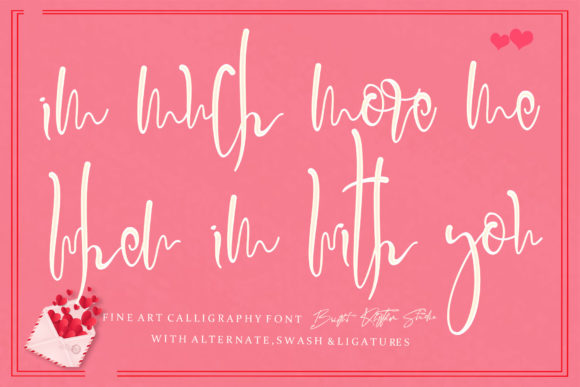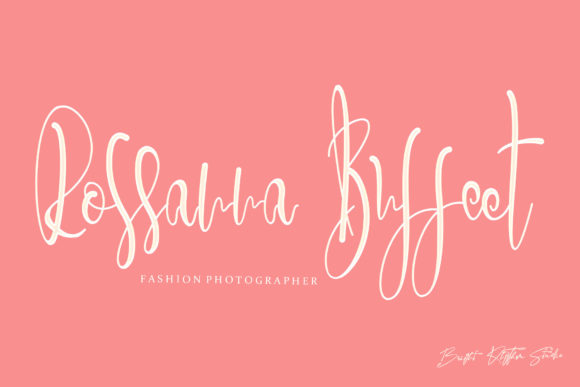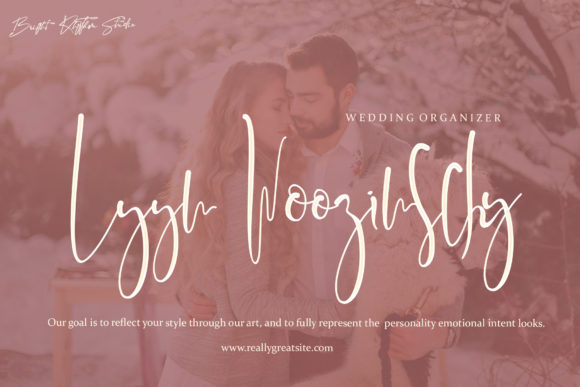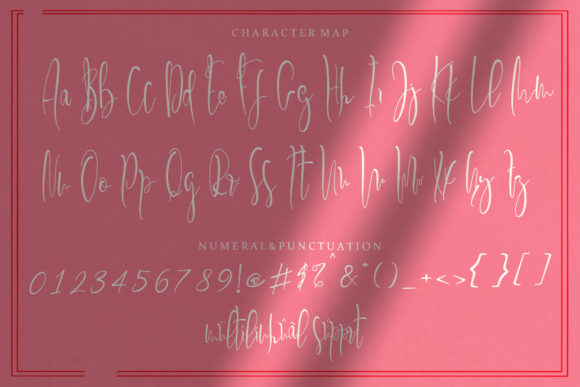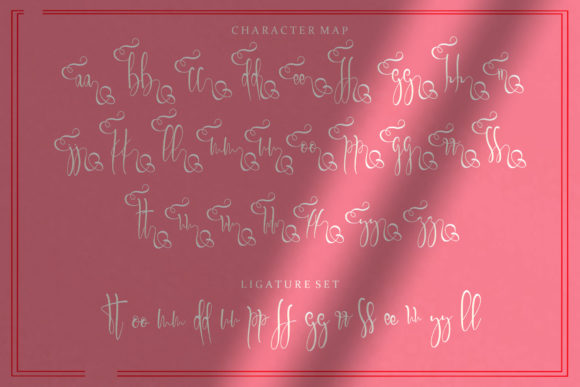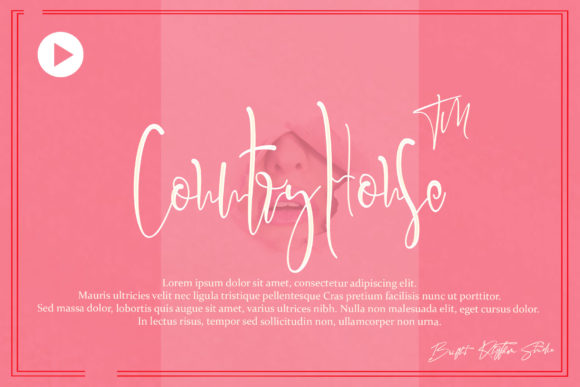
Introduction to Monttsella Font
Have you ever been in the middle of a creative project, pouring your heart and soul into it, only to realize that the right font can make all the difference? It’s that moment when you know you’ve found the perfect design resource to elevate your work to the next level. For me, that moment came when I discovered the beautiful Monttsella Font. Its elegant script style and high-quality design make it the perfect addition to any creative project.
With its PUA encoding, accessing all the glyphs and swashes of the Monttsella Font is a breeze. Whether you’re working on a design project that requires a transparent background or a detailed, high-quality font, the Monttsella Font is a valuable resource that can help you achieve your vision. And the best part? It’s available for free download, making it an excellent choice for designers of all levels.
Key Features of Monttsella Font
- High-quality, professional font suitable for creative projects and design resources.
- Features a unique, modern design that sets it apart from other fonts in its class.
- Designed to be scalable, making it suitable for use in a variety of sizes and resolutions.
- Perfect for use in creative projects, including logos, branding materials, and digital graphics.
Honest Review: Monttsella Font
As a designer, I’m always on the lookout for high-quality fonts that can elevate my creative projects. Recently, I had the chance to try out the Monttsella Font, and I’m here to share my honest review.
- The Monttsella Font is incredibly versatile, suitable for a wide range of design projects from elegant headers to body text.
- The font’s high quality is evident, with crisp and clear lettering that looks great on both light and dark backgrounds.
- The transparent background option is a nice touch, allowing for easy layering and customization.
- The font may not be suitable for very small text sizes, as the lettering can become slightly fuzzy.
- The font family is relatively small, with only a few weights and styles available.
Overall, I’m impressed with the Monttsella Font’s potential to enhance my design projects. While it may have some limitations, its high quality and versatility make it a valuable resource for designers. With a little creativity, I’m confident that I can push this font to its full potential and create some truly stunning designs.
Tips for Getting the Most Out of Monttsella Font
To get the most out of the Monttsella Font, use it on a transparent background to create a clean and minimalist design. You can also use it in combination with other design elements to add visual interest to your project.
The Monttsella Font is perfect for a variety of creative projects, including logos, business cards, and marketing materials. It’s also great for designing digital products, such as e-books and websites.
Alternatives to Monttsella Font
The Great Vibes Font is a high-quality, handwritten font that’s perfect for creative projects requiring a touch of elegance and sophistication. It’s available for free download and can be used for a wide range of design needs, from wedding invitations to restaurant menus. Great Vibes Font has a more playful and whimsical feel compared to Monttsella Font, making it ideal for projects that require a lighter tone.
The Alex Brush Font is a beautiful, handwritten font that’s designed to evoke a sense of warmth and intimacy. It’s perfect for creative projects that require a personal touch, such as wedding invitations, baby announcements, and personal branding. Alex Brush Font has a more delicate and refined feel compared to Monttsella Font, making it ideal for projects that require a softer, more feminine touch.